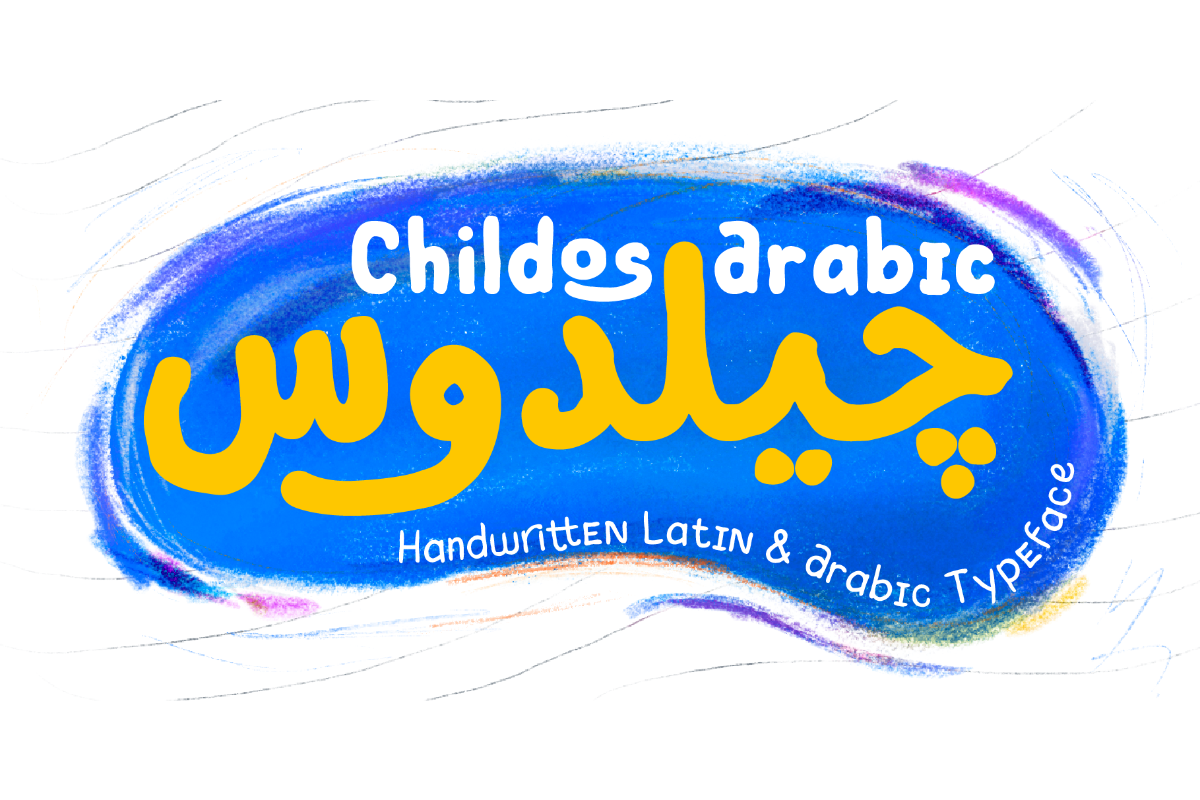
Childos Arabic Light
Childos Arabic Font - A Handwritten Kids Typeface for Playful Branding & ePub Arabic typography doesn’t have to be formal. Childos Handwritten Arabic Font proves that—a hand-drawn, childish, and irresistibly fun Arabic typeface designed for brands and projects that aim to feel warm, expressive, and full of energy. Built for kids-focused design, playful branding, and multilingual publishing, Childos Arabic brings the joyful spirit of childhood into Arabic script, making it one of the most disti